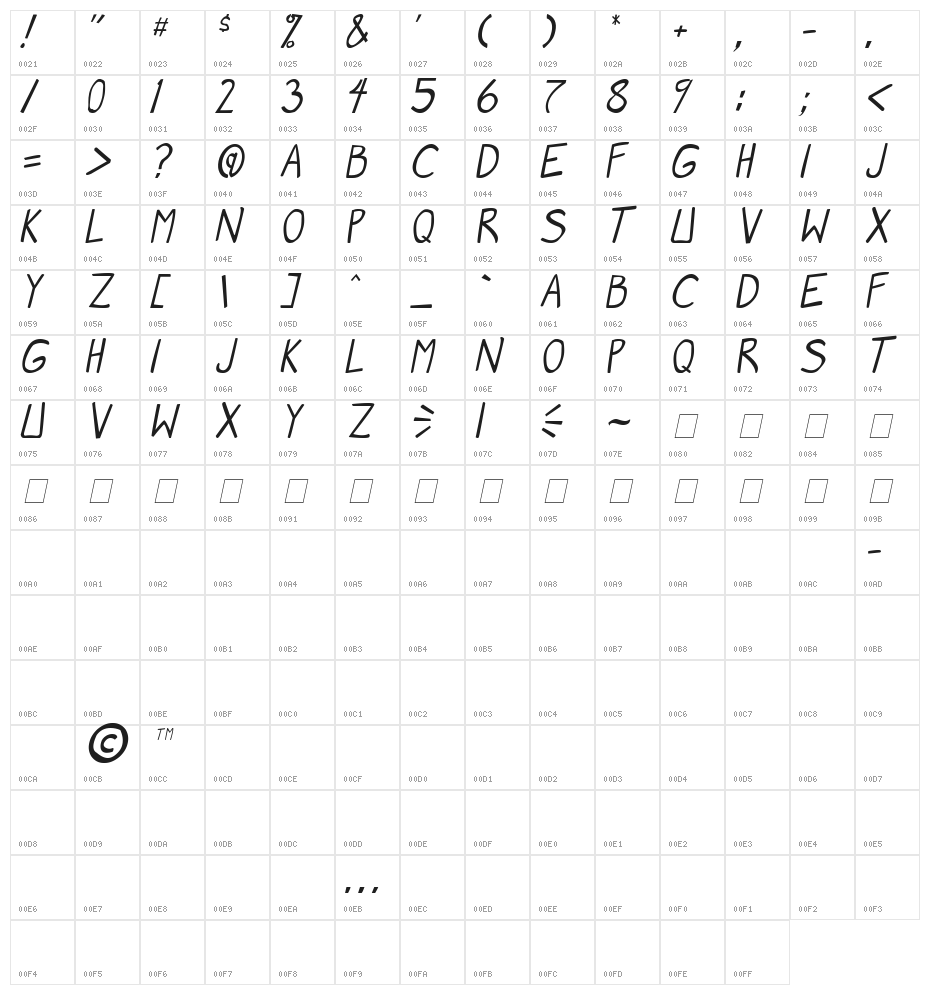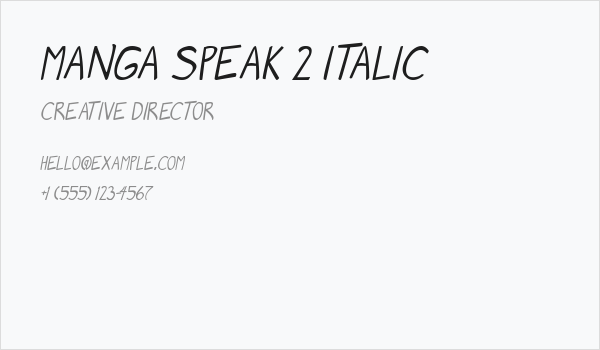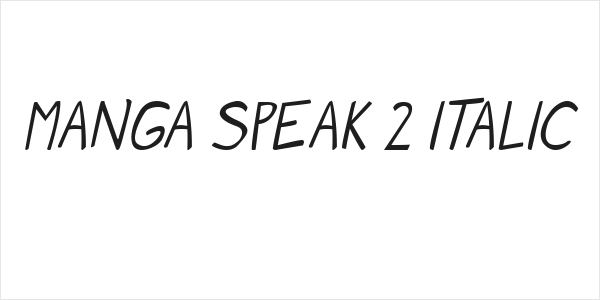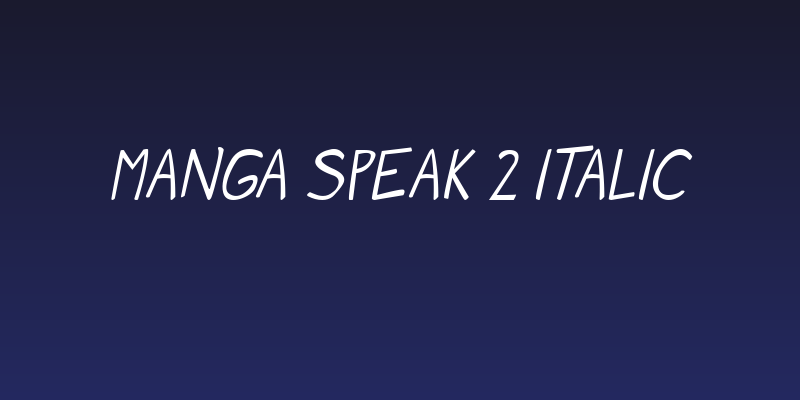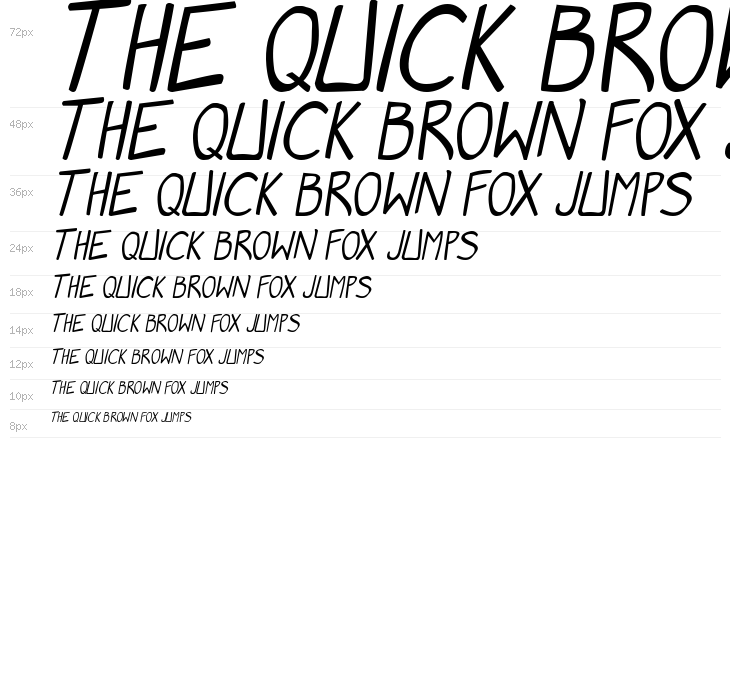
Manga speak 2 Italic Font
Manga speak 2 Italic Description
This font features a playful and dynamic style, characterized by its italicized and slightly slanted letterforms. The strokes are smooth and fluid, giving it an energetic and informal appearance. The uppercase and lowercase letters maintain a consistent flow, with rounded edges and a slight tilt to the right, enhancing its casual and friendly vibe. The numerals and special characters follow the same design principles, ensuring uniformity across the typeface. This font's unique style makes it suitable for creative and informal applications, where a touch of personality is desired.
| Proposed Projects | Ideal for comic books, children's books, playful branding, and informal invitations. |